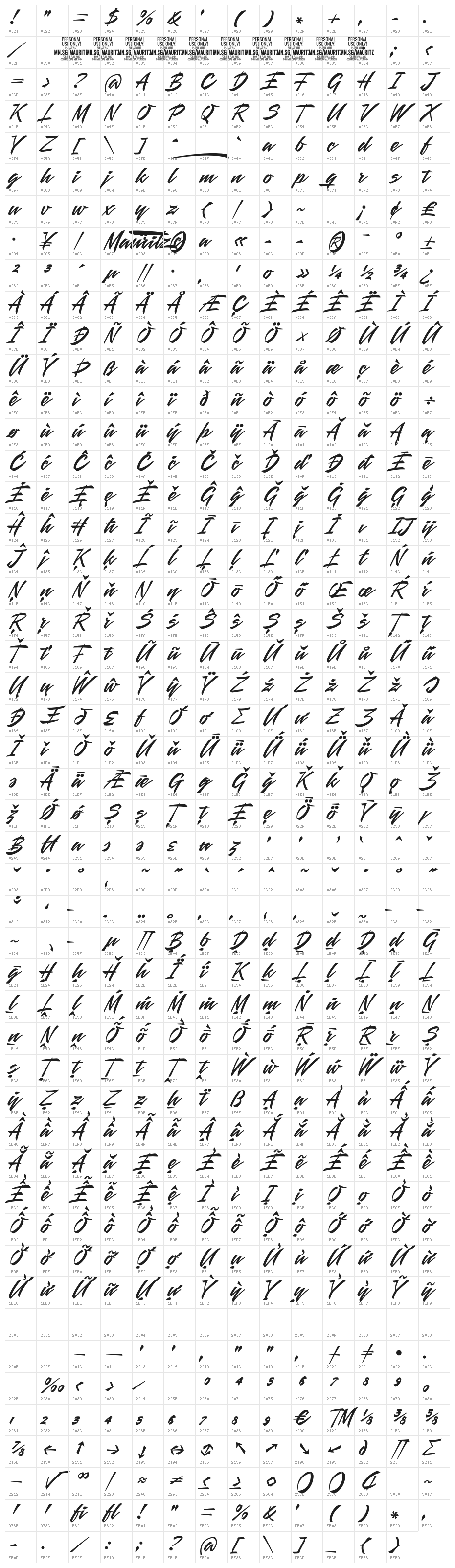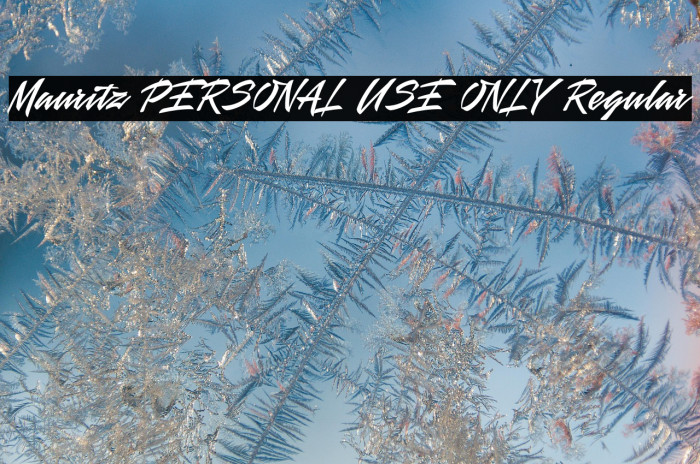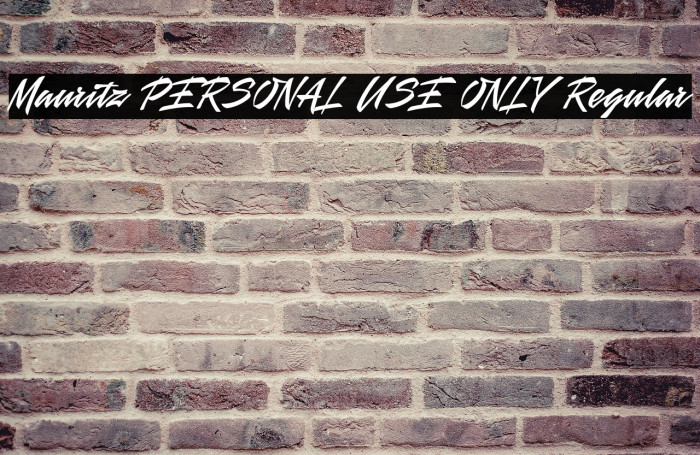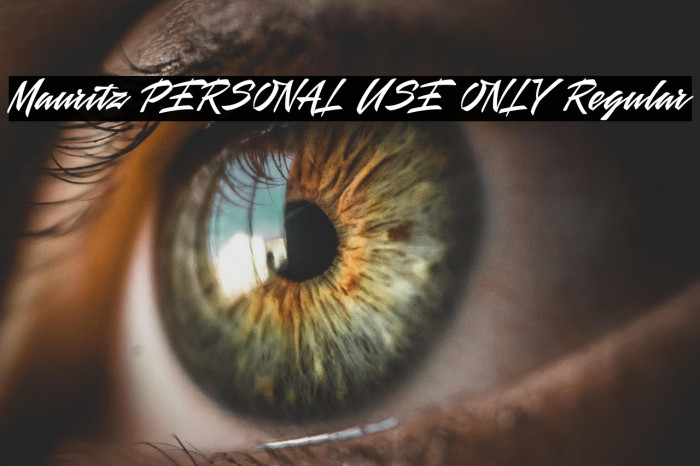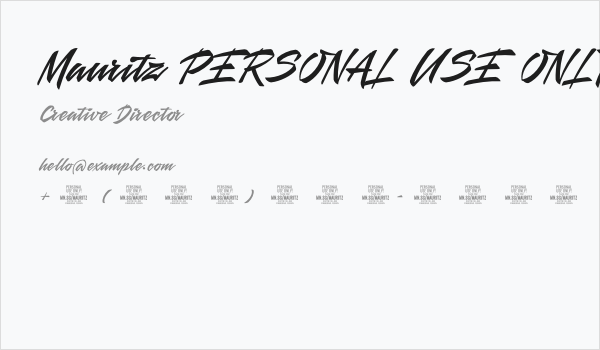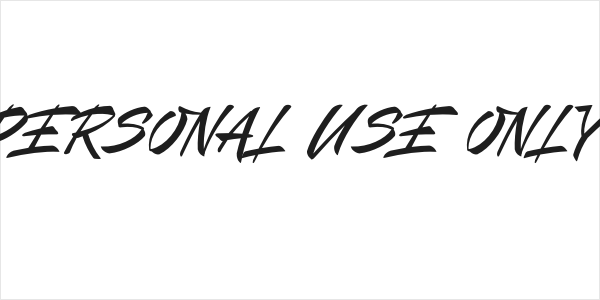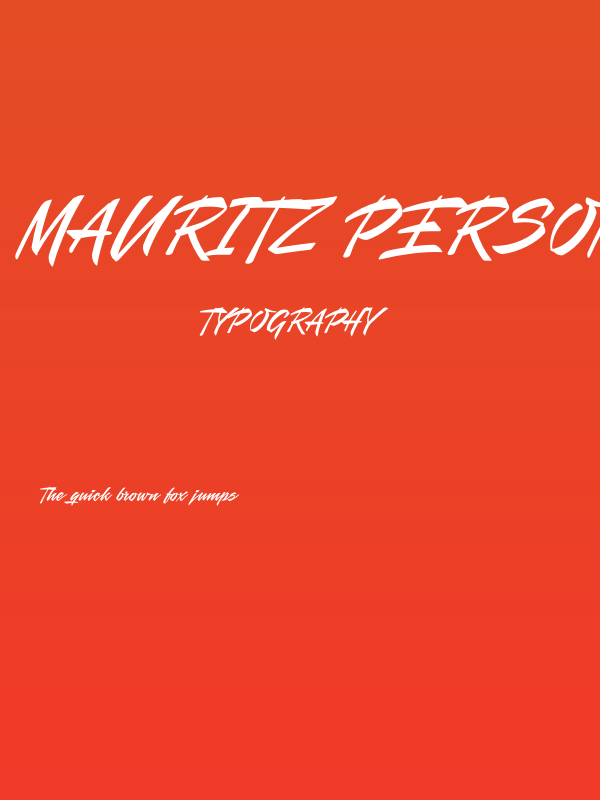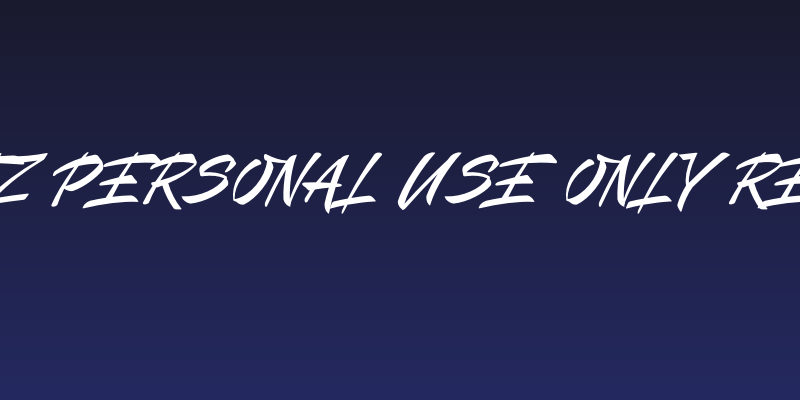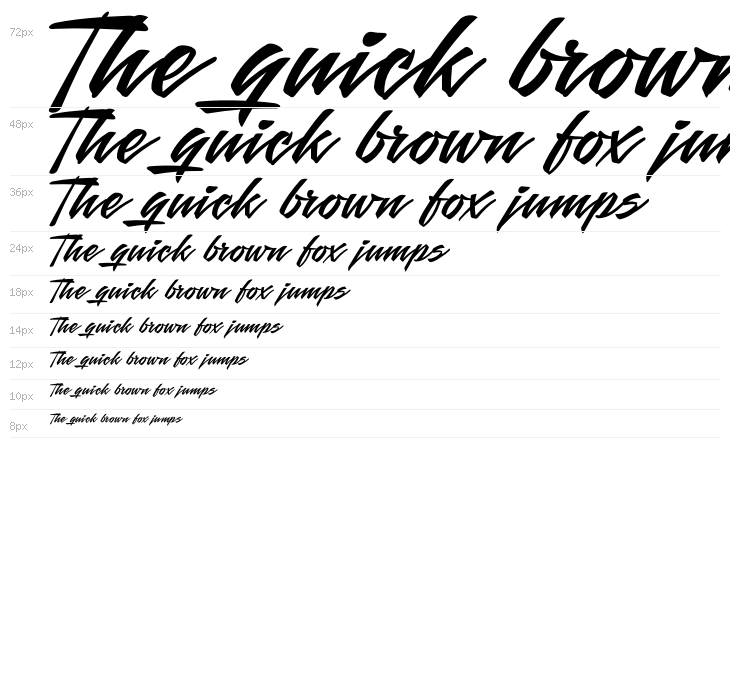
Mauritz PERSONAL USE ONLY Regular Font
Mauritz PERSONAL USE ONLY Regular Description
This font exhibits a bold and dynamic script style with a strong, confident presence. The letters are slanted, giving a sense of motion and fluidity, reminiscent of handwritten calligraphy. The strokes are thick and consistent, providing a robust appearance. The uppercase and lowercase letters maintain a cohesive style, with smooth curves and sharp edges that enhance its expressive nature. The special characters complement the overall design, maintaining the same bold and flowing characteristics. This font is ideal for creating impactful and stylish designs.
| Proposed Projects | This font is perfect for branding, logo design, posters, and invitations where a strong, stylish impact is desired. |